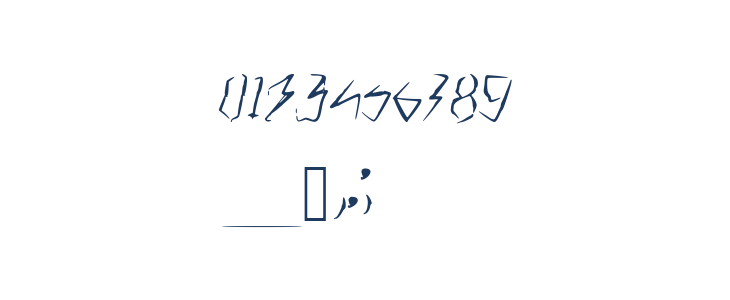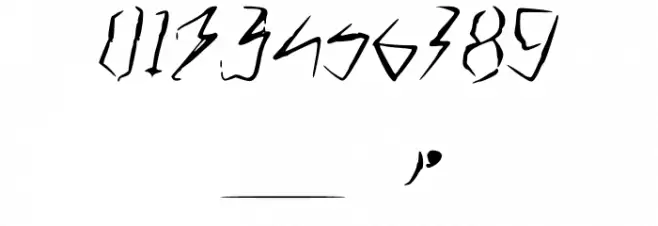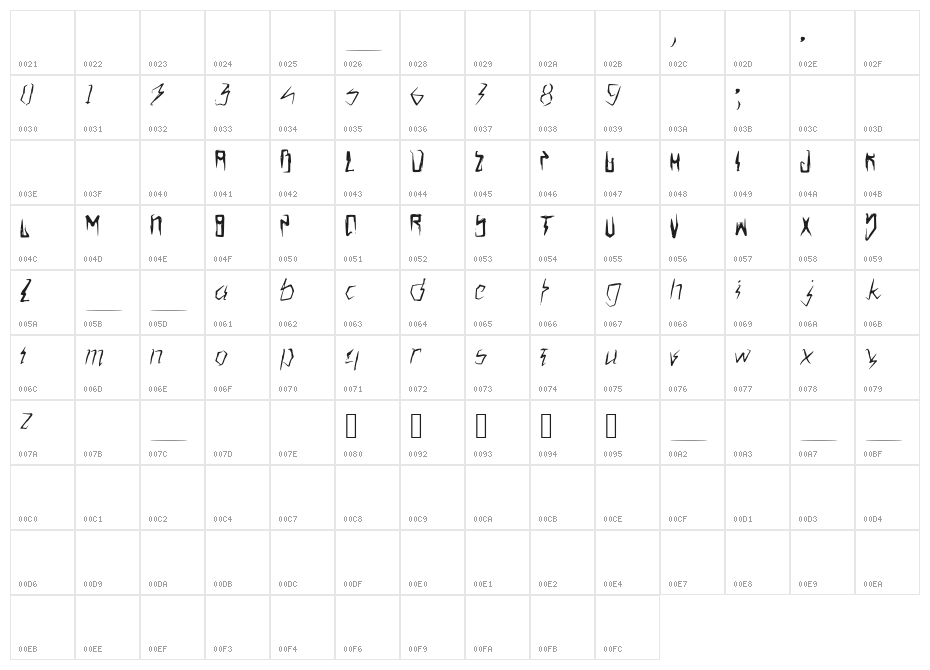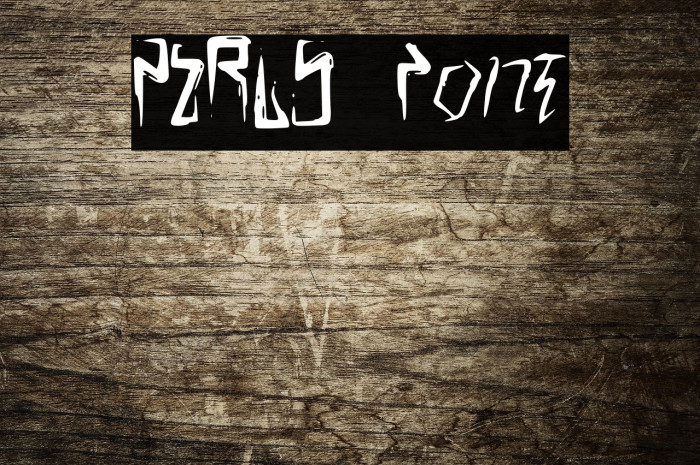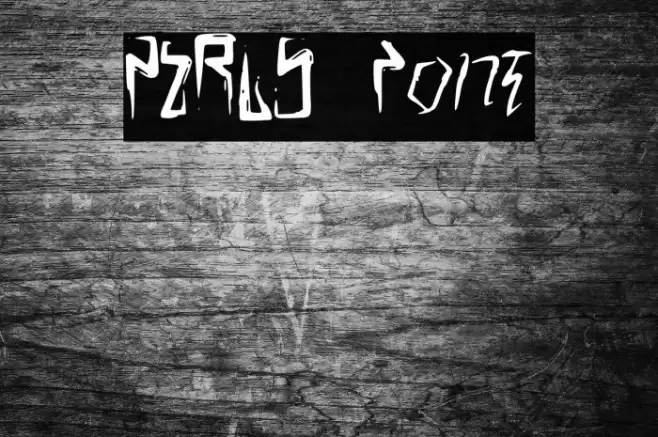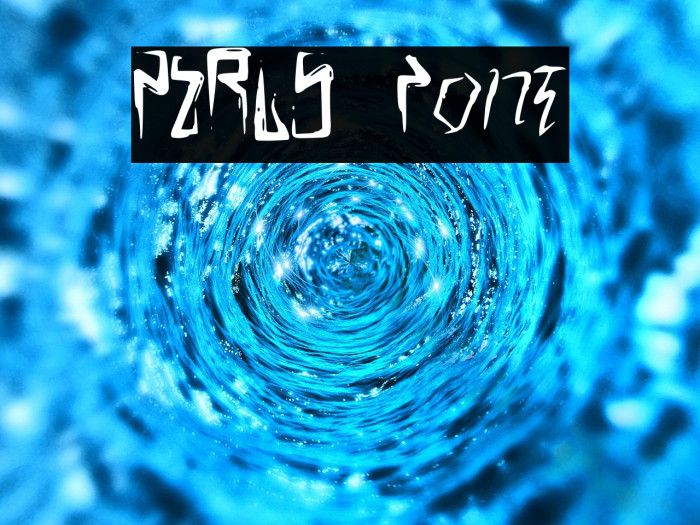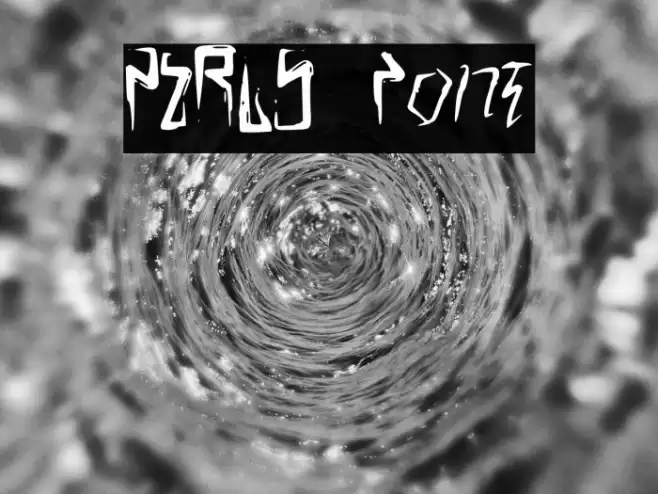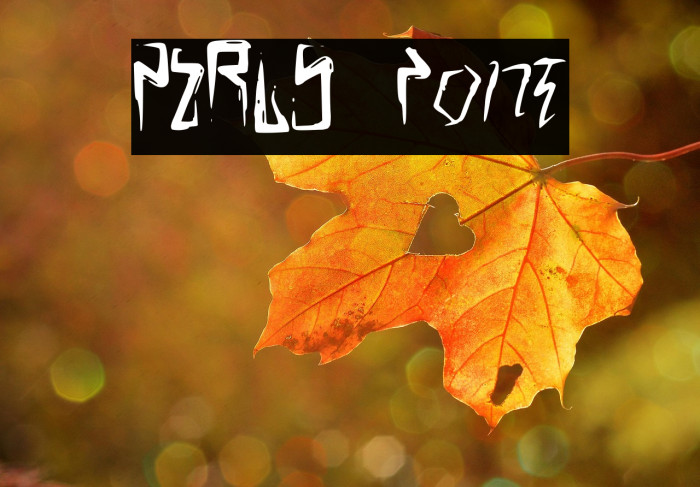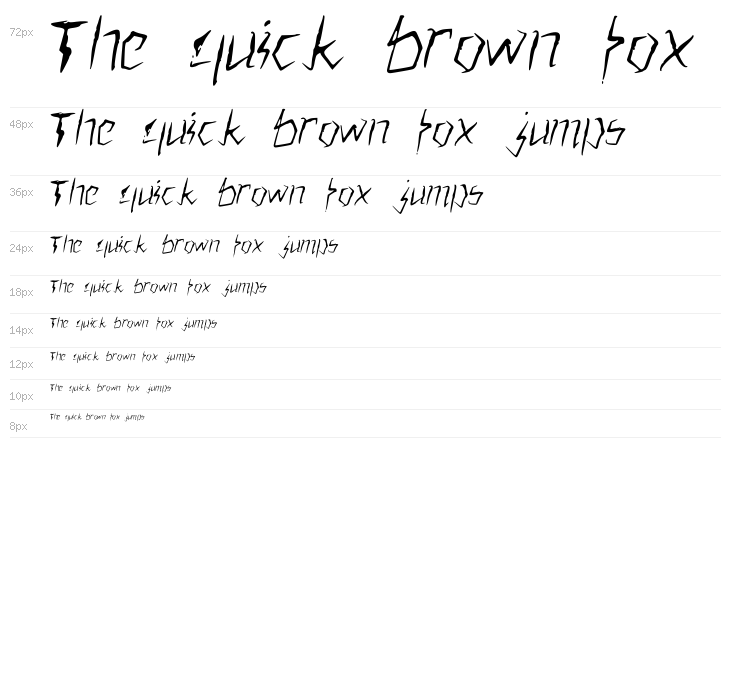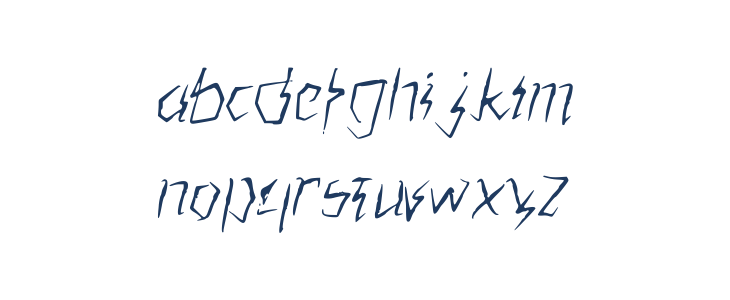
PERLS Font
PERLS Description
This font features a striking, angular design with a hand-drawn aesthetic. The characters exhibit a sharp, jagged appearance, reminiscent of graffiti or urban art styles. The uppercase letters are bold and commanding, while the lowercase letters maintain a consistent angularity, providing a cohesive look. Numbers and special characters follow the same design principles, ensuring uniformity across all elements. The overall style is edgy and modern, making it suitable for projects that require a bold statement.
| Overall Style | Modern, Edgy |
| Proposed Projects | Ideal for album covers, streetwear branding, urban-themed posters, and edgy graphic design projects. |